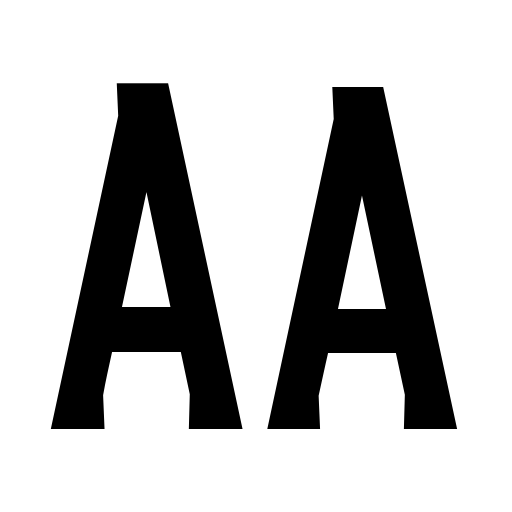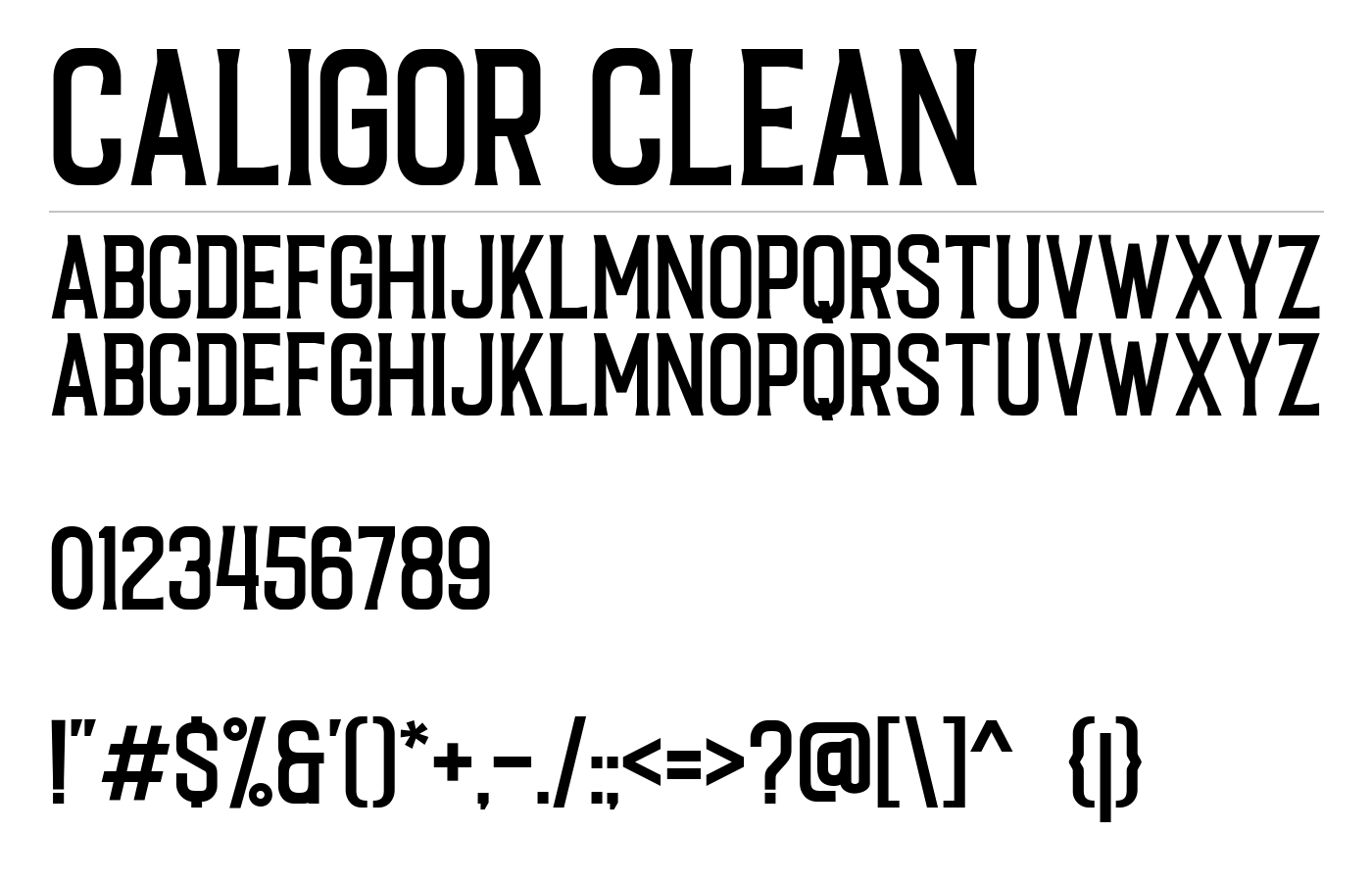
Caligor Clean is a bold, condensed sans serif font with a strong vertical emphasis and clean geometric shapes that create a modern, industrial feel. Its tall, narrow letterforms and uniform stroke weight give it a confident, straightforward personality, making it ideal for impactful headlines, branding, and editorial designs where clarity and presence are key. This font works well for fashion, sports, and tech brands seeking a sleek, contemporary edge.
Caligor Font
About Caligor Font